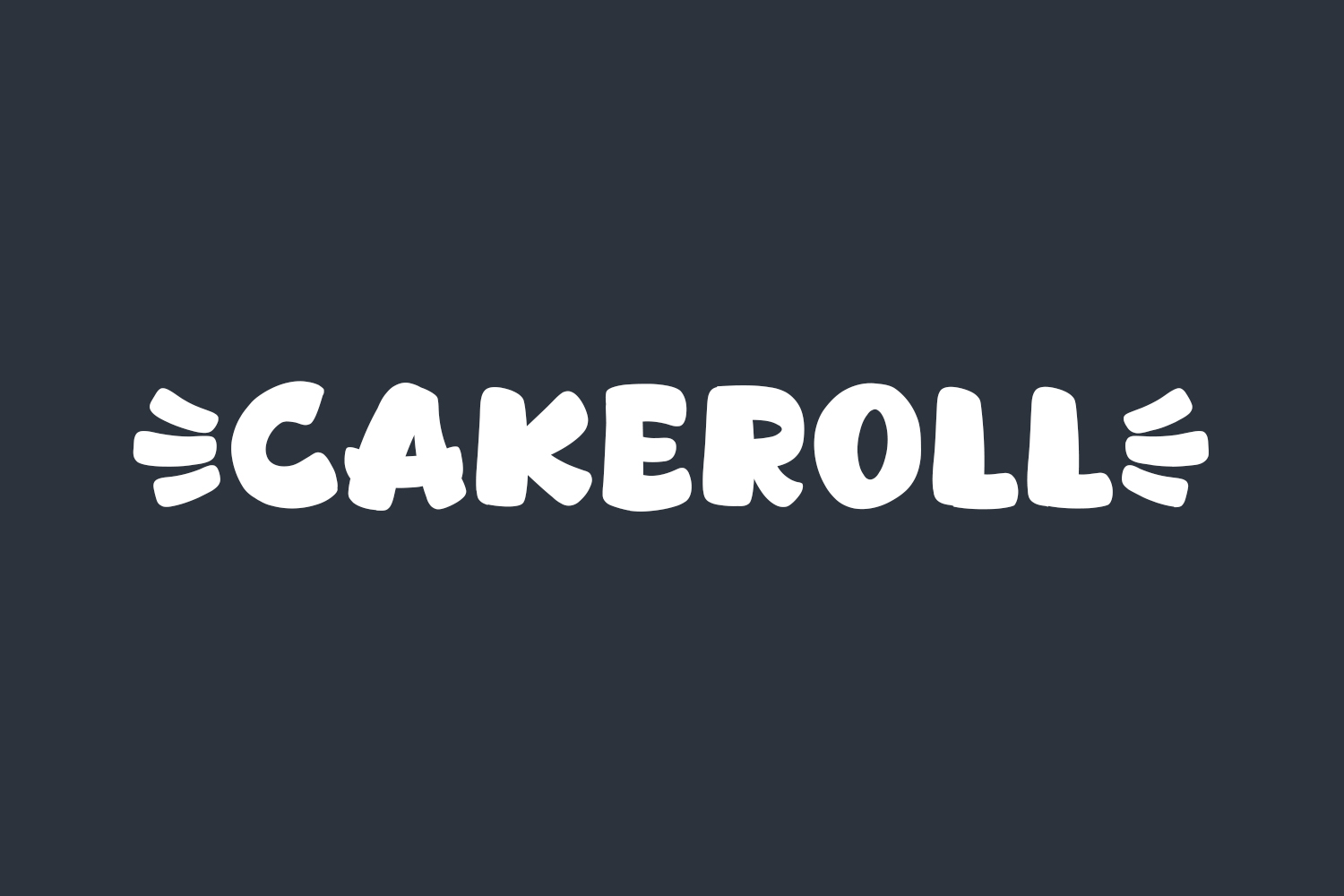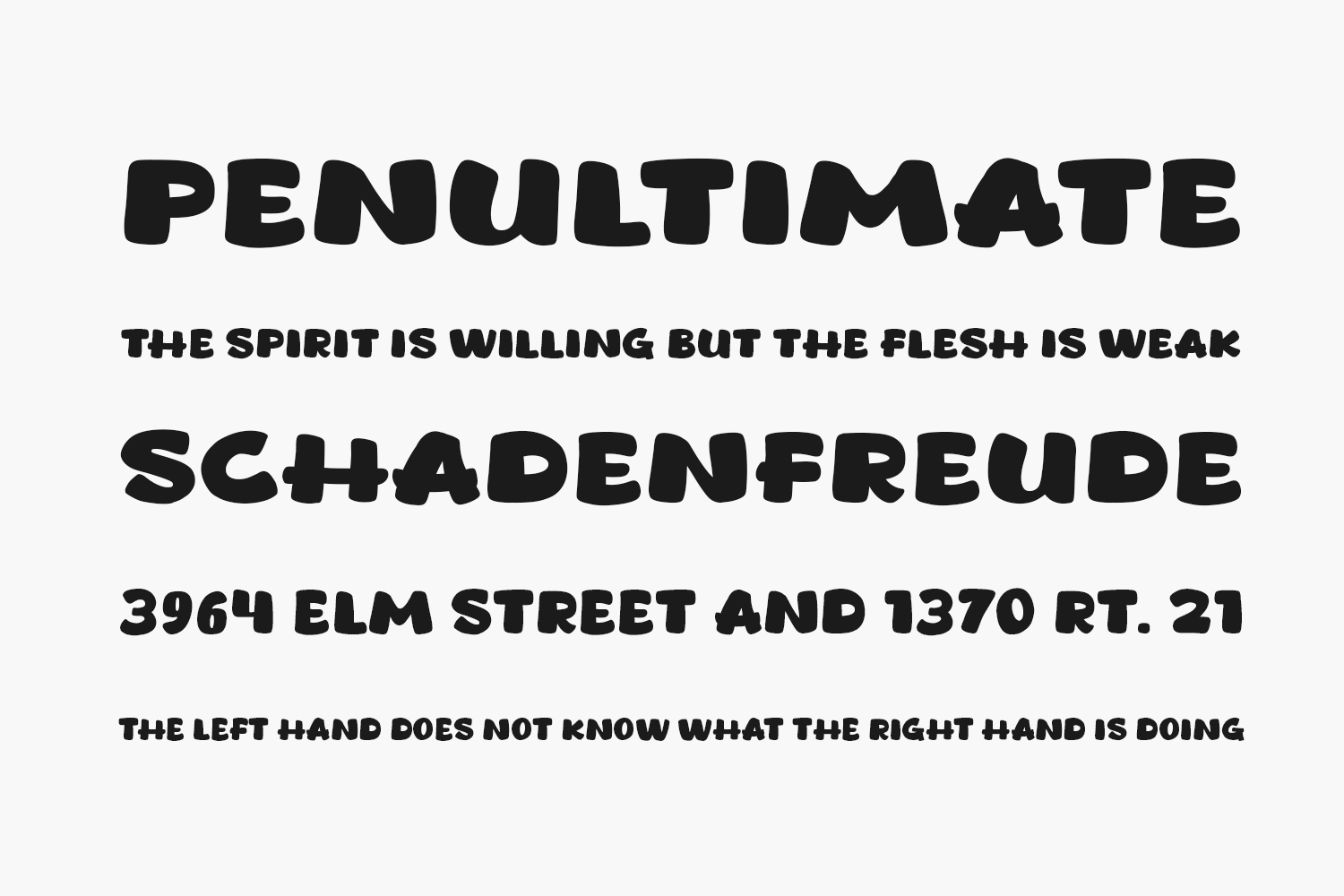
Introducing Cakeroll Free Font, a sleek and sophisticated display font designed for versatility. Elevate your posters, logos, magazines, book covers, banners, and more with this modern typeface. Unleash your creativity by incorporating this amazing font into your designs, and witness how it effortlessly enhances a wide range of projects. Make your creative ideas stand out with the unique charm of Cakeroll. Cakeroll Free Font was designed by Akifatype Studio and is free for personal or commercial use.